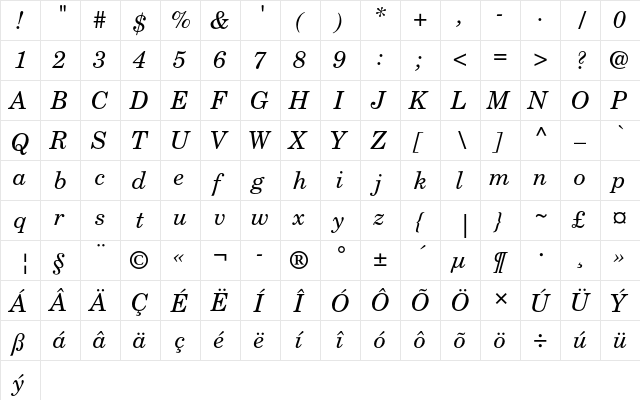
New Century Schoolbook CE Italic
Design Context for New Century Schoolbook Typeface
New Century Schoolbook takes a measured approach to typography — its balanced proportions and neutral character make it a reliable workhorse for both digital and print work. The slanted form adds forward momentum and visual energy.
Pro Tip: Use New Century Schoolbook for emphasis, pull quotes, and subheadings where its slanted energy can add rhythm to the layout.